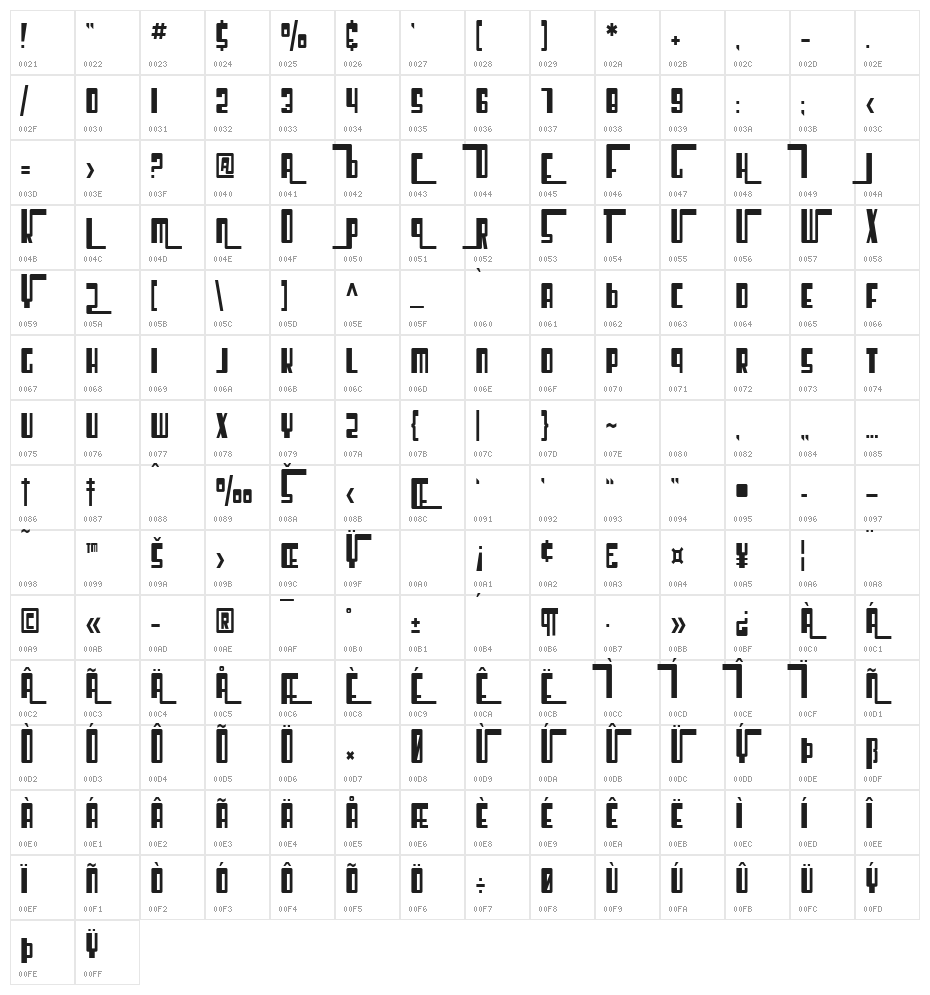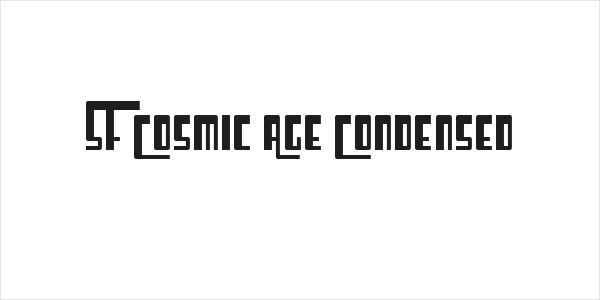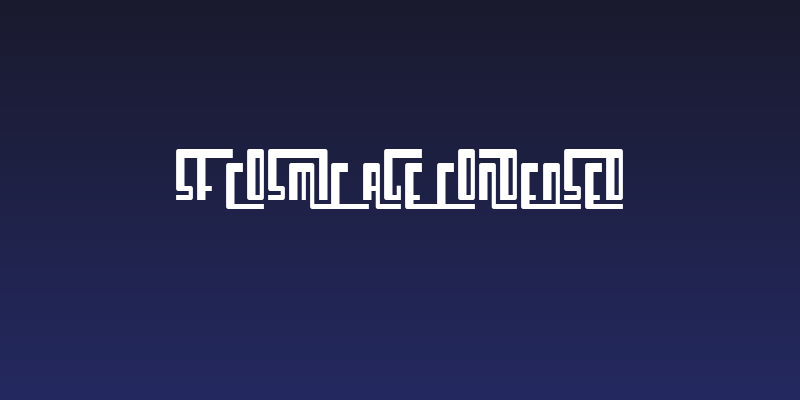
SF Cosmic Age Condensed Font
SF Cosmic Age Condensed Description
This font features a futuristic and geometric design with a condensed structure. The characters are bold and have a strong presence, with straight lines and sharp angles that give it a modern and technological feel. The uppercase and lowercase letters maintain a consistent height, enhancing its uniformity. The numerals and special characters are designed to match the overall style, making it suitable for digital and sci-fi themed projects. Its unique appearance makes it stand out, ideal for creating eye-catching headlines or logos.
Proposed ProjectsIdeal for sci-fi themed designs, technology branding, video game interfaces, and futuristic posters.